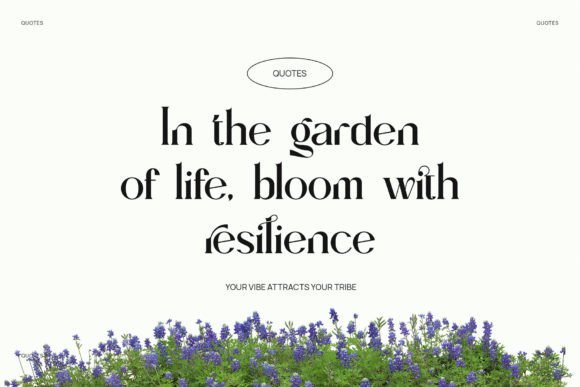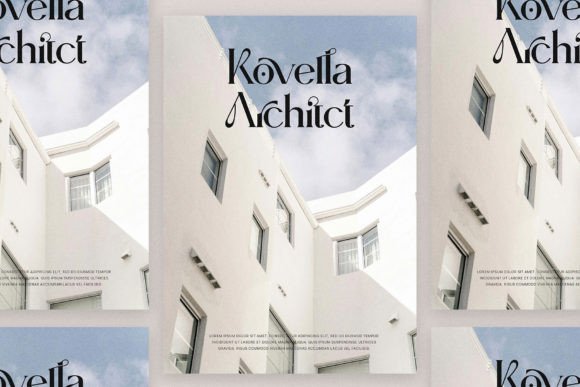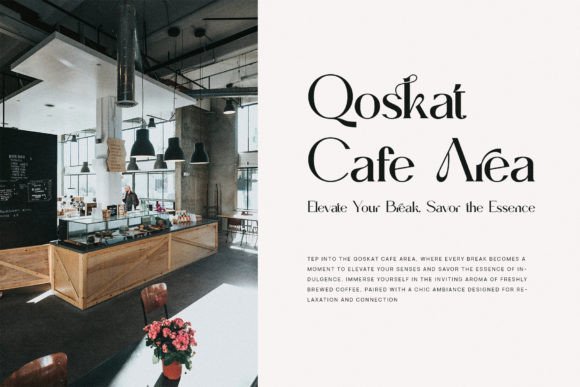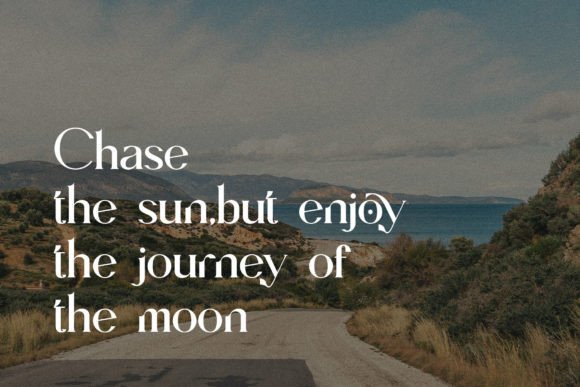
Migroska Font
Migroska is a classy serif typeface with elegant ligatures. Its stylish design adds sophistication to any project. Perfect for headings, logos, and more, Migroska brings a touch of class to your typography.